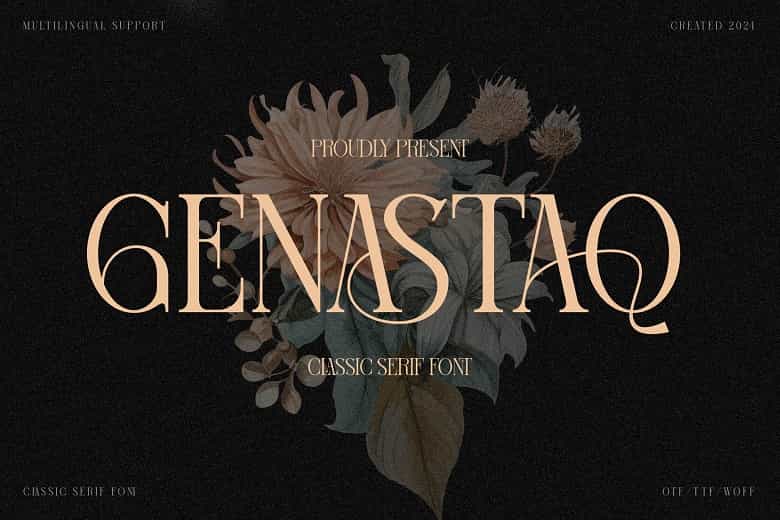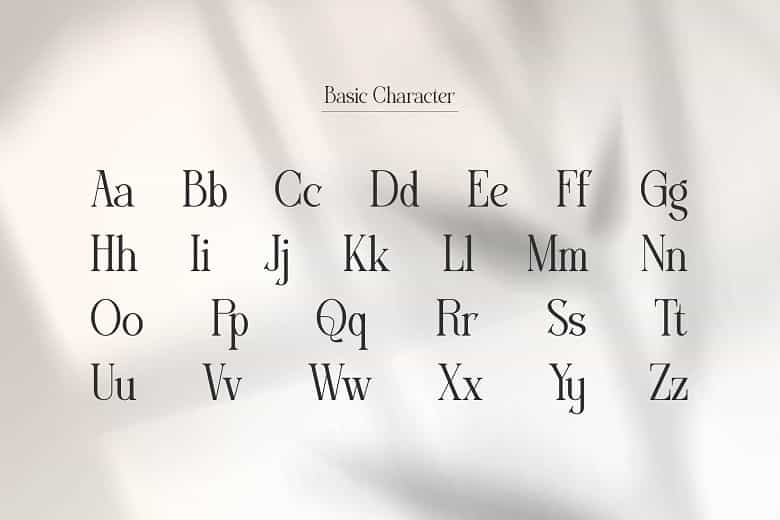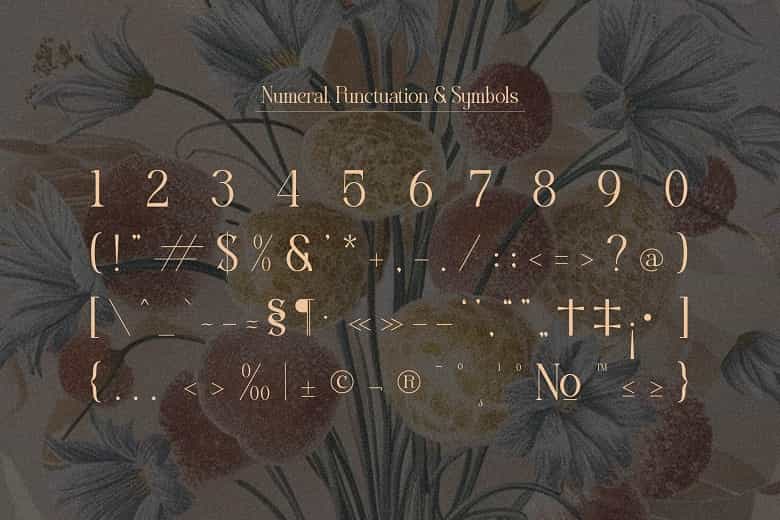
Genastaq is a standard serif font with clean and timeless appearance of the letters. It is more precise and looks more professional than rounded ones: it has clear and strict lines, and seems to be Ideal for official use and elegant design.